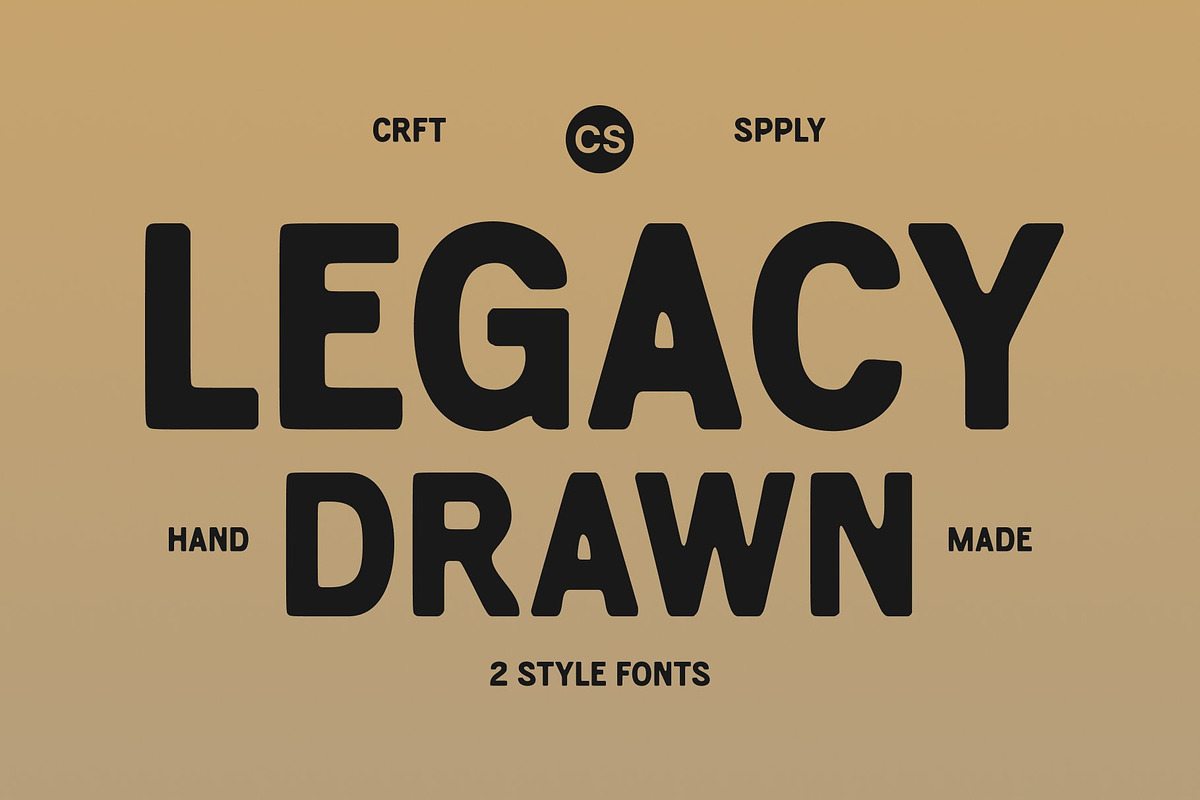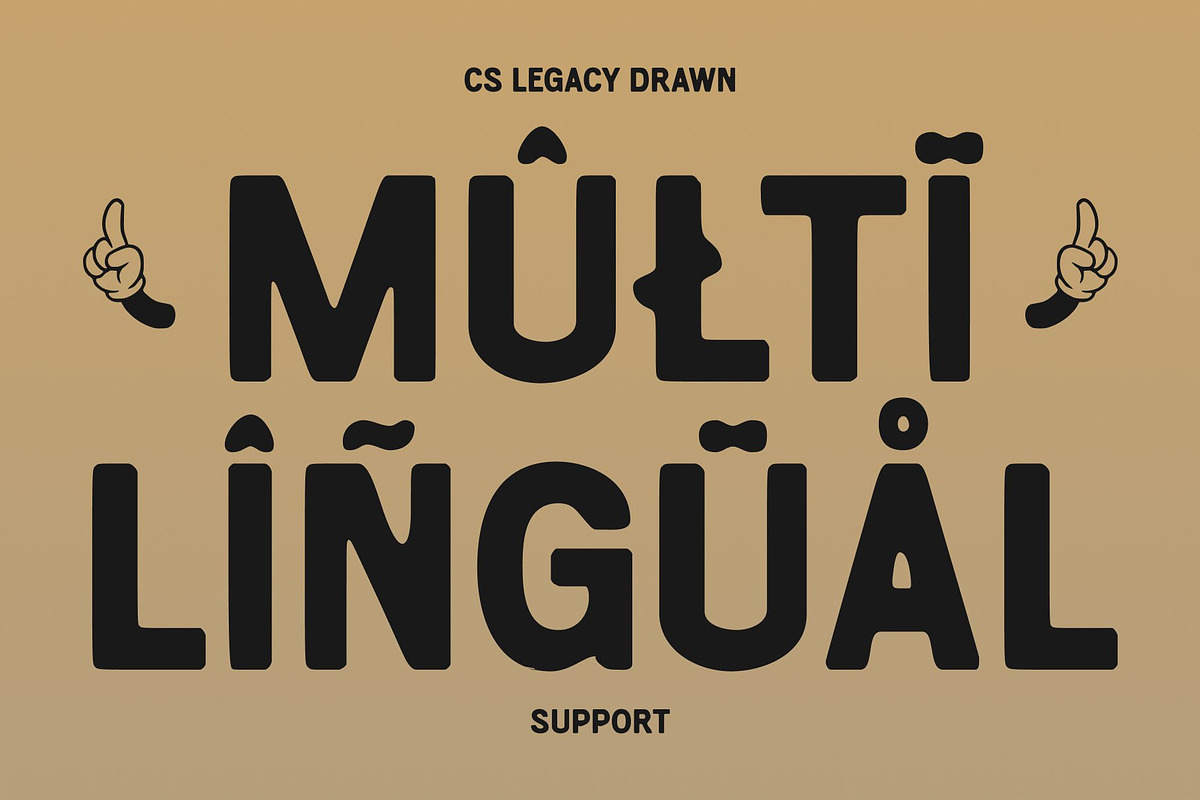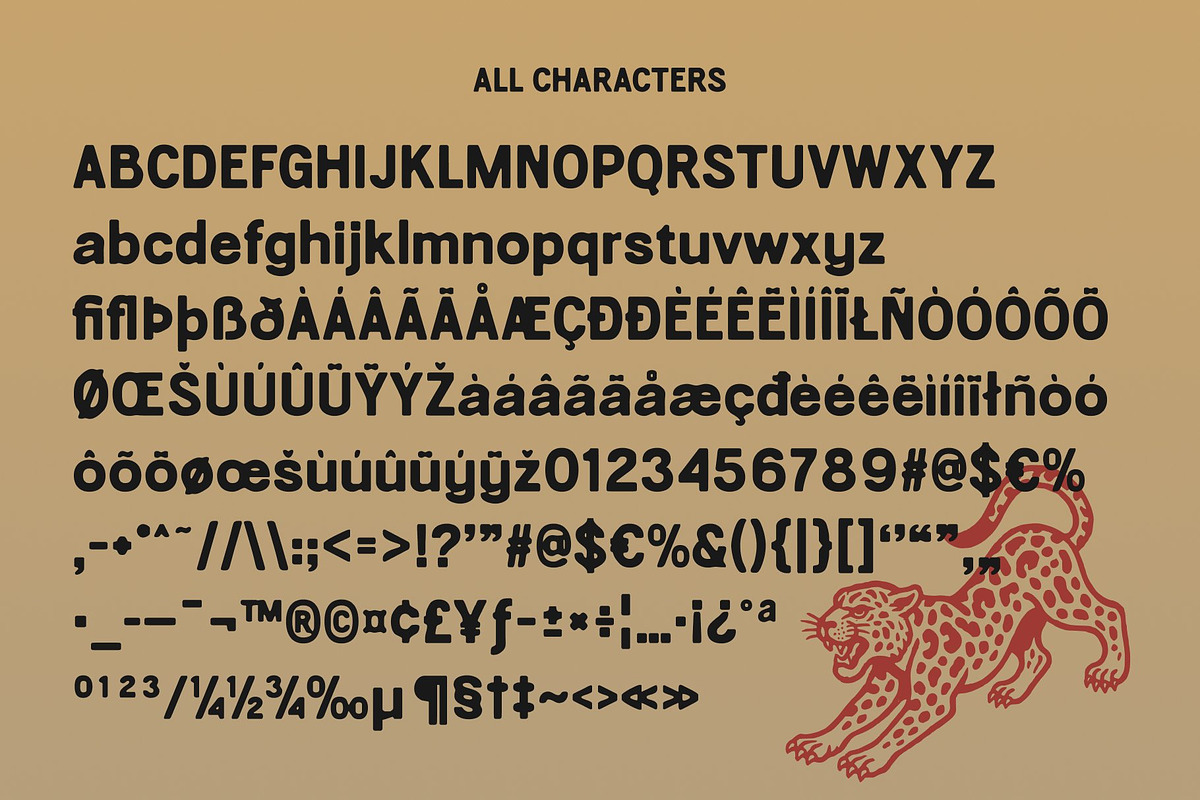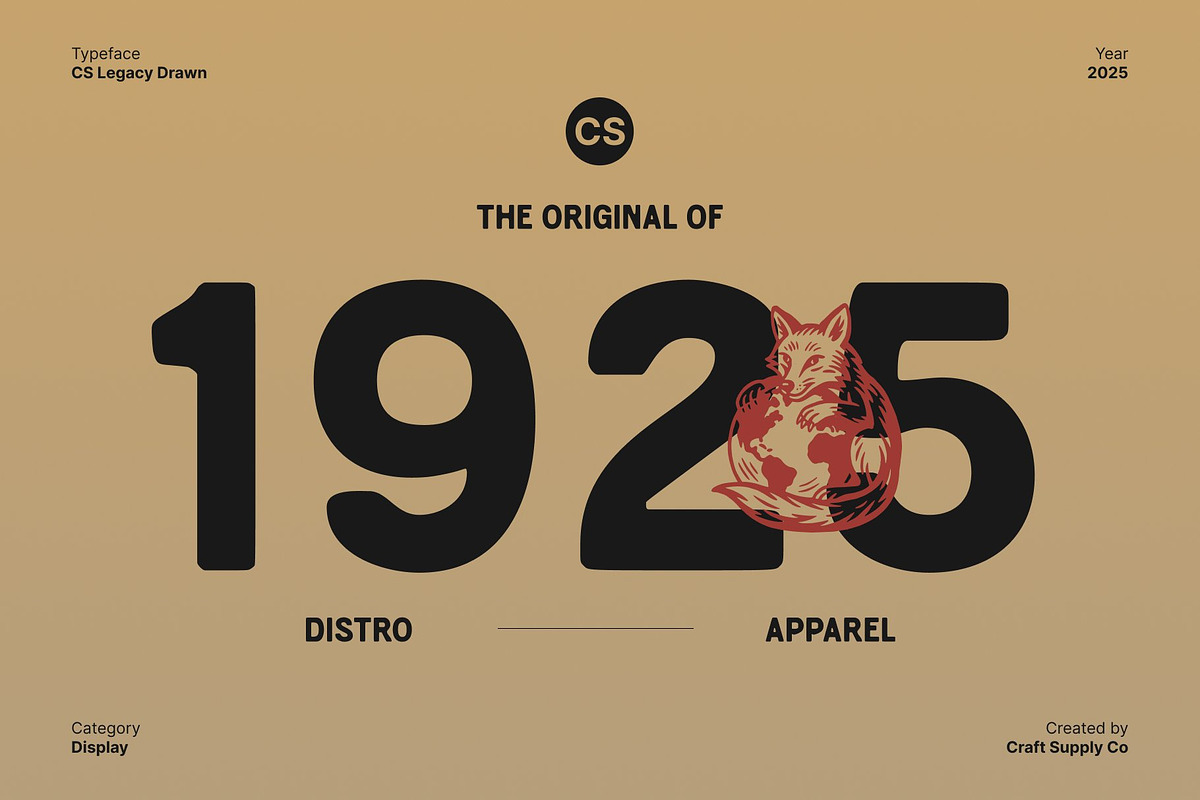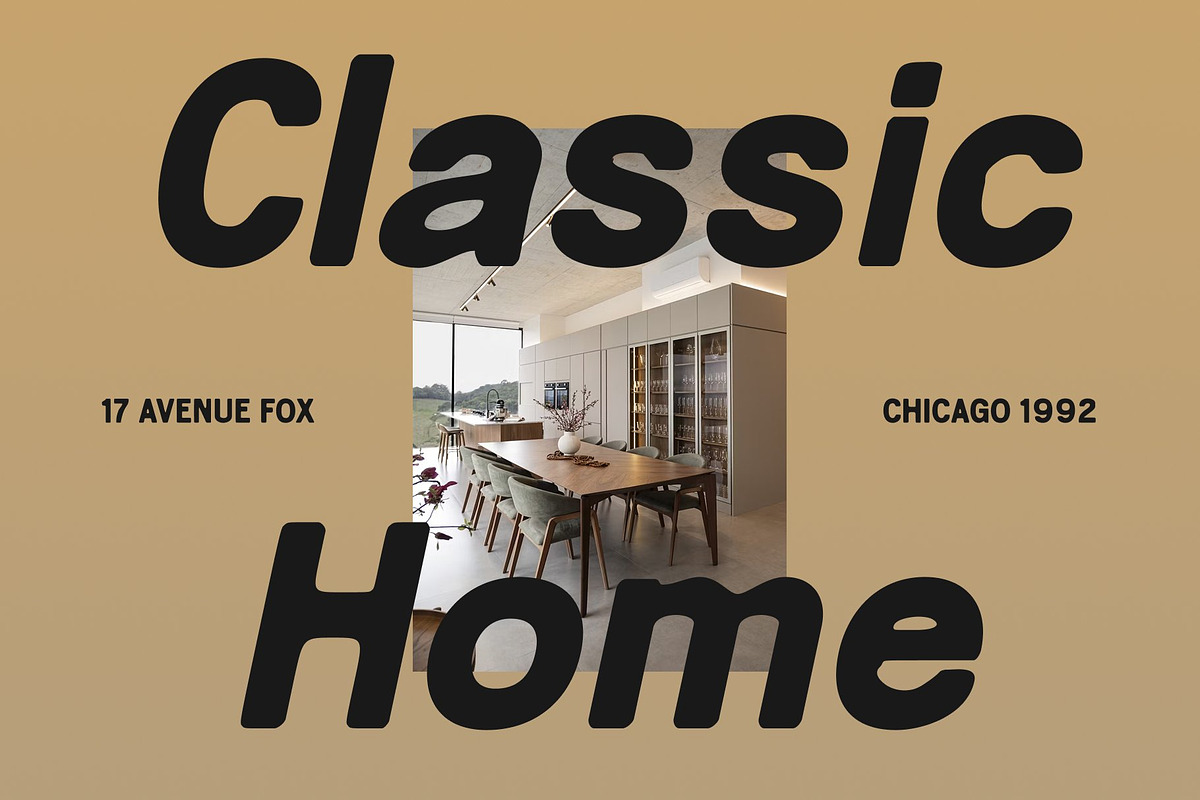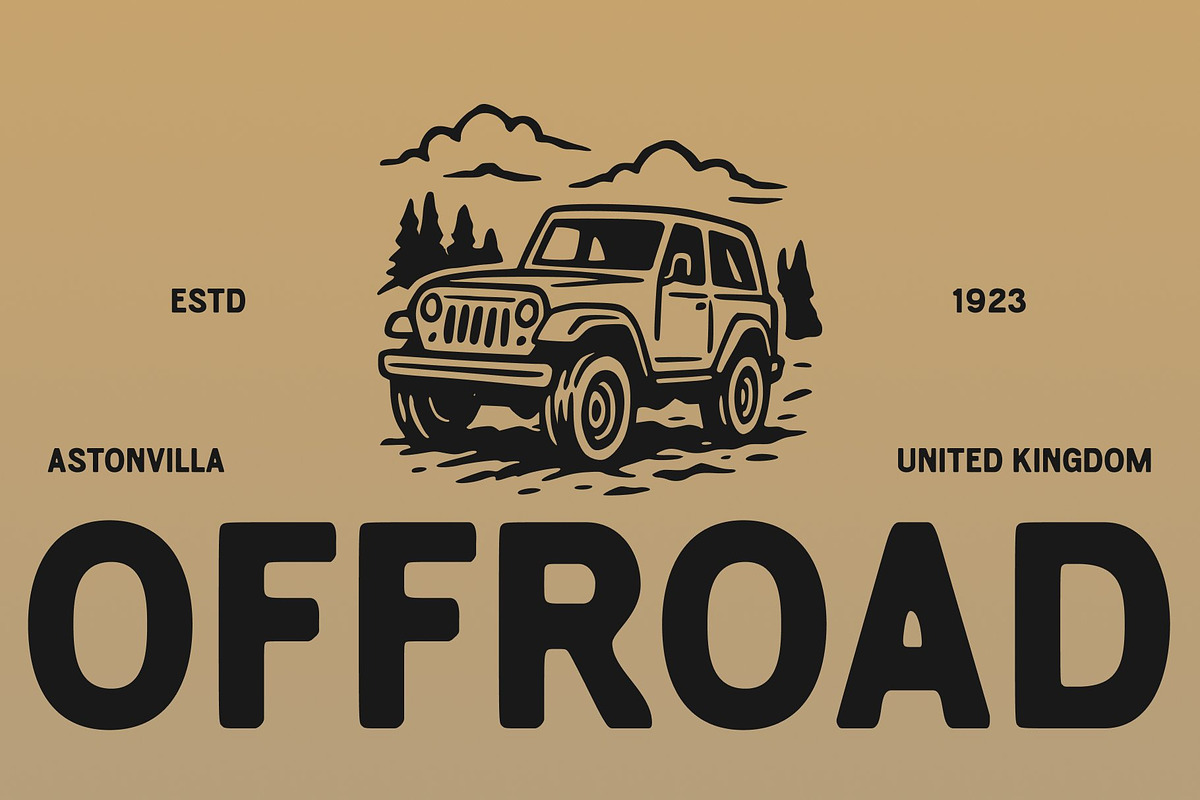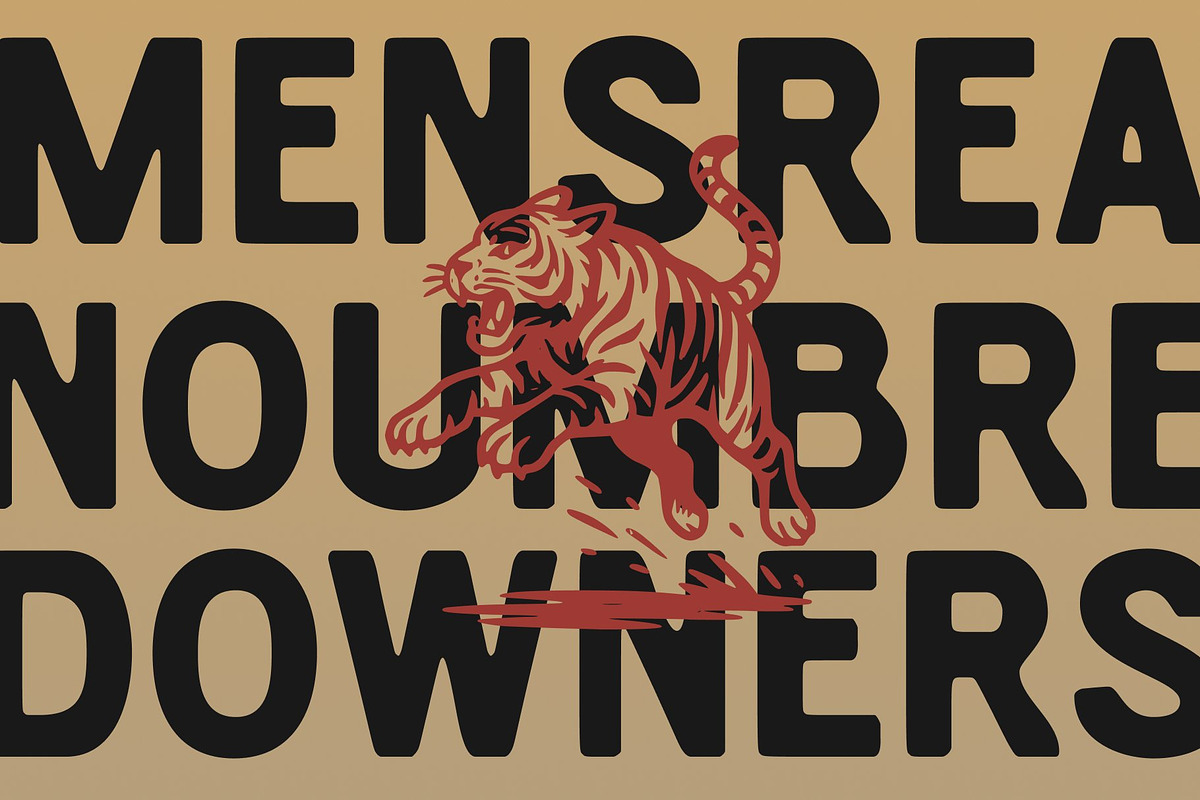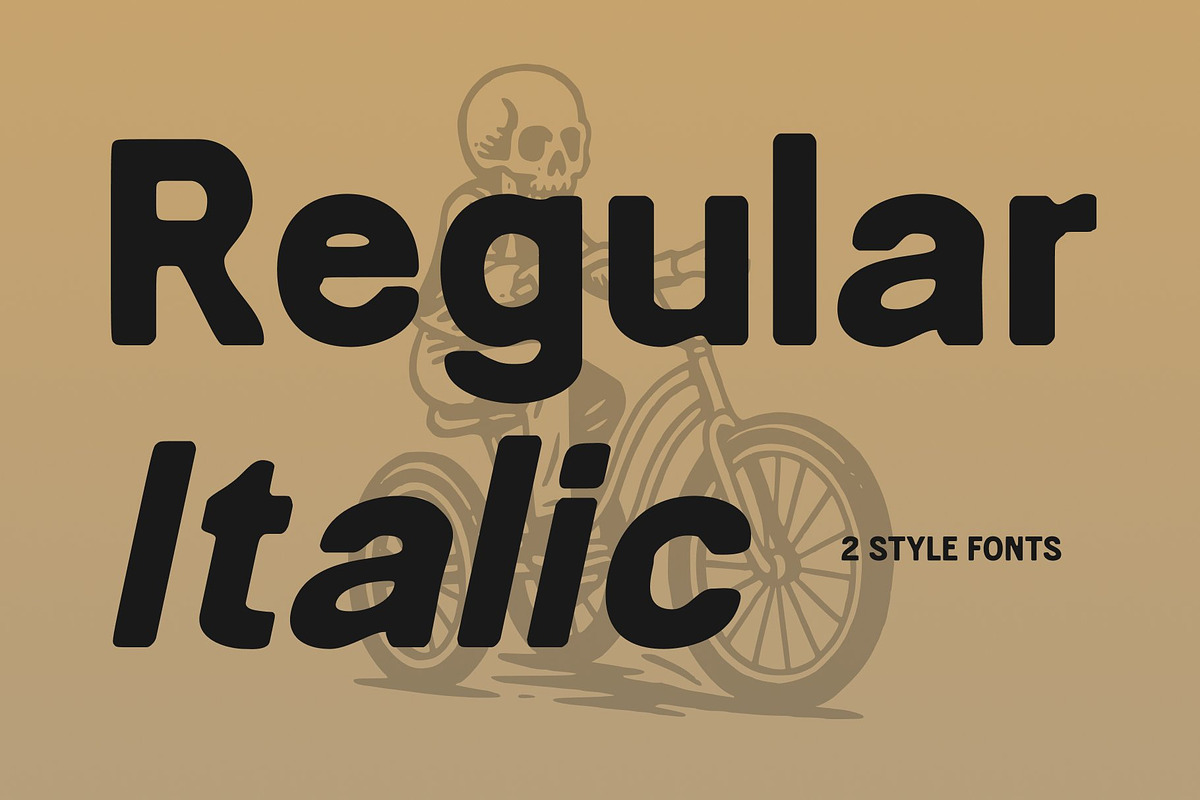
CS Legacy Drawn
CS Legacy Drawn – Bold Sans Serif with Handcrafted Expression
Striking Modern Display with Bold Impact This is a bold sans serif display font designed to make a strong visual statement. Its clean, modern shapes convey confidence and clarity, ensuring your text stands out in any creative project. The font is perfect for designs that demand presence and authority.
Handcrafted Texture for Artistic Personality Enhanced with a drawn handmade touch, this font brings a unique artistic flair to its modern structure. The subtle imperfections and organic lines create personality and warmth, giving the font a distinctive, expressive character that sets it apart from standard sans serif designs.
Powerful and Expressive Letterforms The font’s bold and geometric forms deliver a sense of strength while maintaining readability and style. Each character balances assertiveness with visual harmony, making this font ideal for attention grabbing headlines, posters, or branding materials.
Perfect for Headlines, Branding, and Creative Projects This font is versatile and impactful, suitable for a wide range of design applications. From striking editorial layouts and bold poster designs to memorable branding campaigns, its combination of modern structure and handcrafted texture ensures your projects communicate strength, creativity, and expressive style.